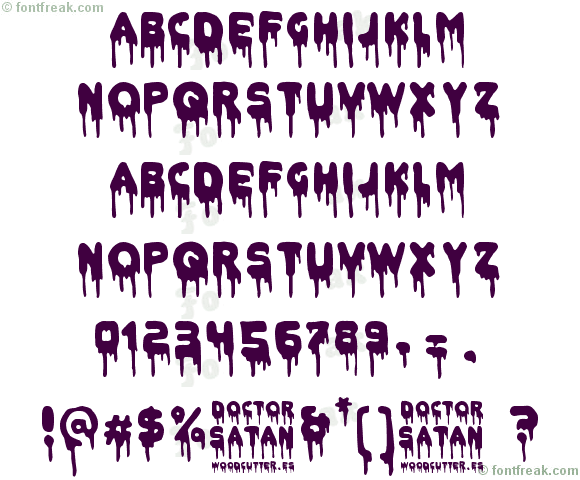
Doctor Satan
About Doctor Satan
The Doctor Satan font, designed by woodcutter Manero, is a striking display typeface that captures attention with its unique aesthetic. As a decorative font, it features an intriguing blend of horror and whimsy, making it perfect for projects that require a bold statement. The letters are characterized by irregular, dripping edges that evoke a sense of playfulness while simultaneously paying homage to classic horror themes. The stroke weight varies throughout, creating a sense of movement and energy, while the ample spacing between characters enhances readability in larger formats.
This font excels in various creative applications, particularly in designs that celebrate the macabre. It is ideal for Halloween-themed party invitations, where its dripping effect adds an engaging visual element. Additionally, the Doctor Satan font works well on movie posters, especially for horror or thriller genres, effectively drawing in audiences with its eye-catching style. It's also suitable for branding in niche markets such as haunted attractions or spooky-themed merchandise. Furthermore, small business owners looking to create an unforgettable logo or promotional material can leverage this font to stand out in a crowded marketplace.
The target audience for the Doctor Satan font includes graphic designers, content creators, and marketers who seek to infuse their work with a distinctive flair. Whether crafting a social media campaign or designing a unique product label, this font provides the perfect touch.
In conclusion, the Doctor Satan font is a remarkable choice for those looking to make an impact. With its captivating design and versatility, it invites creativity and inspires innovation. Don't miss out on this opportunity; explore the Doctor Satan font free download to elevate your projects and make a memorable impression.